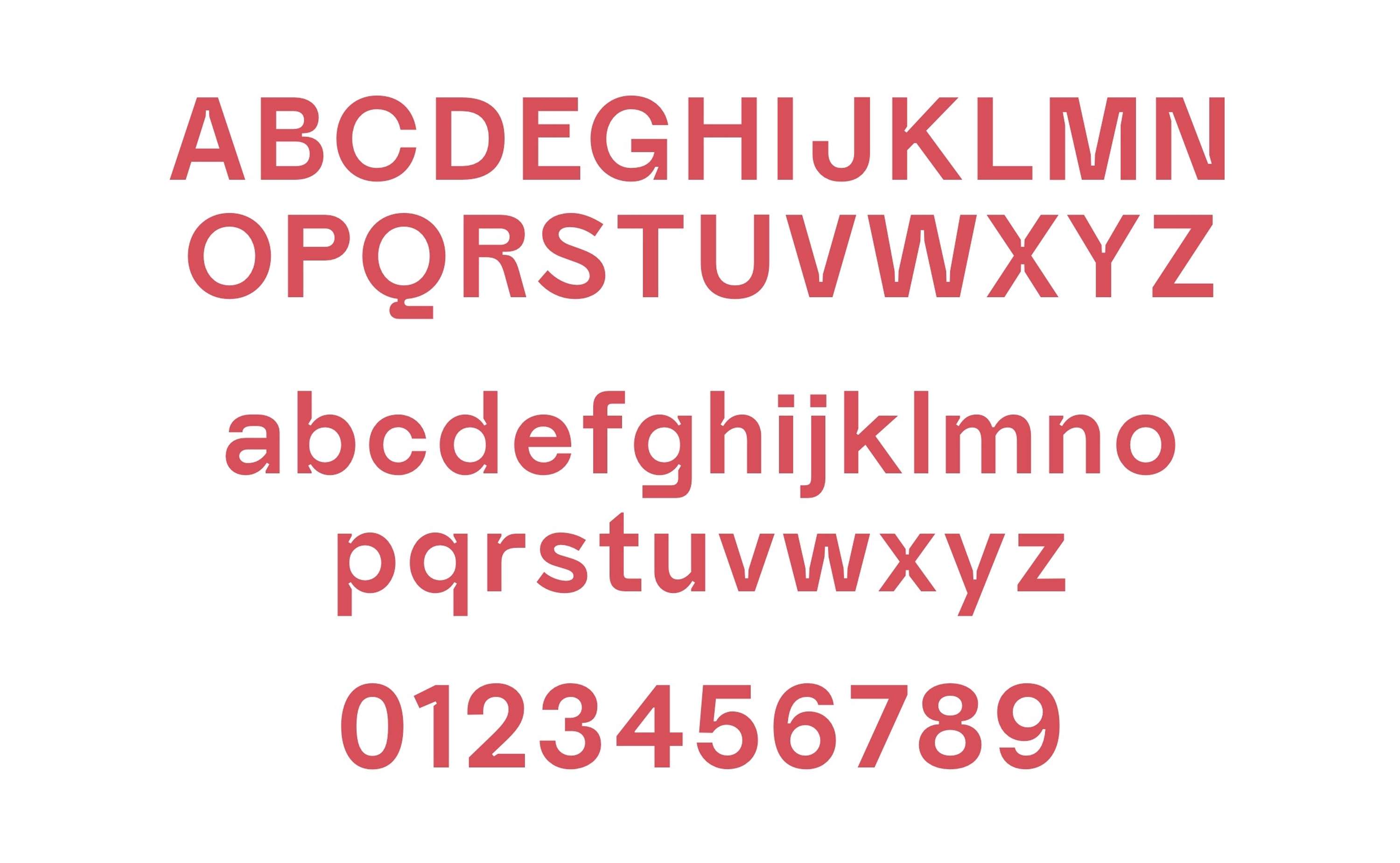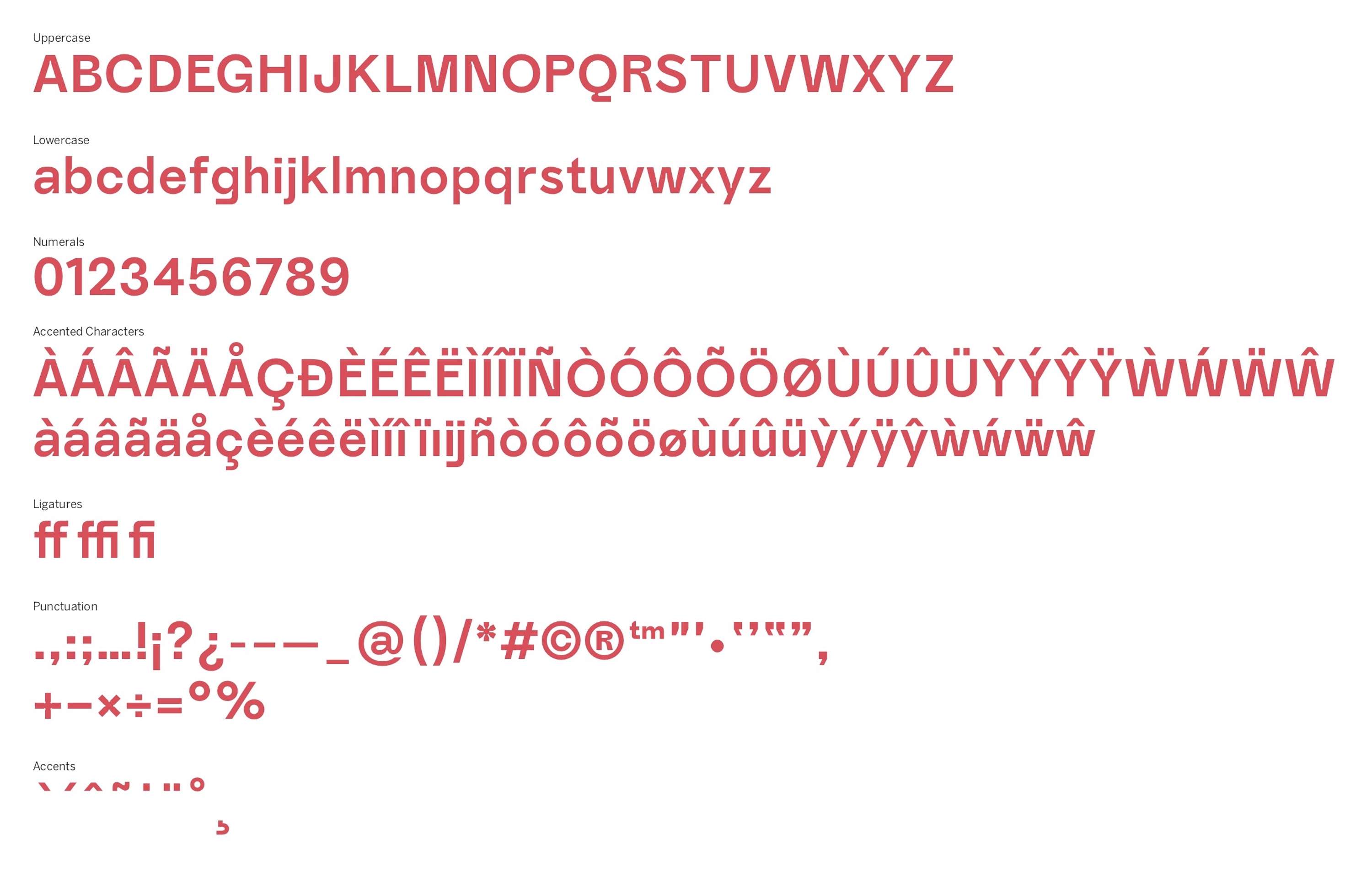
Dickies Making Typeface
A graphic identity and typeface developed for creative agency ThisHere and the legendary American workwear company, Dickies. Explores what it takes to be a ‘maker’ in the present day through exploring craft, the act of making, and the history of the brand. The typography looks back into the history of Dickies and early American industrialism to draw inspiration from hand-drawn signage, labor posters* and rough-cut type specimens. It references traditional technological details such as exaggerated ink trapping† and early American sans serif lettering styles, leaving an exaggerated remnants of process that would ordinarily have become hidden, giving a view into the craft of print. Shifts in type size and a mix of all upper or all lowercase text will draw attention to important words. Compositions range across the page or screen to give a sense of urgency and action, further emphasised by the bold red text colour.
Dickies Making Typeface by Roanne Toosy